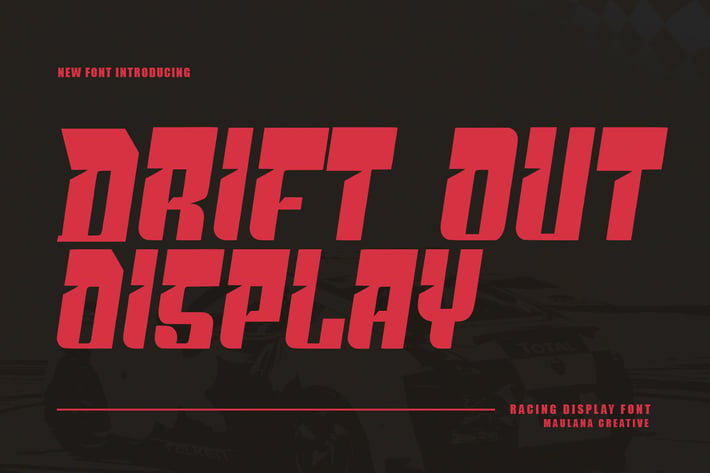
Drift Out Racing Display Font
Drift Out racing display font. With vintage stroke, fun character with alternates to give you an extra creative work. Drift Out support multilingual language. This font is good for logo design, Social media, Movie Titles, Books Titles, a short text even a long text letter and good for your secondary text font with script or serif. Make a stunning work with Drift Out racing display font.